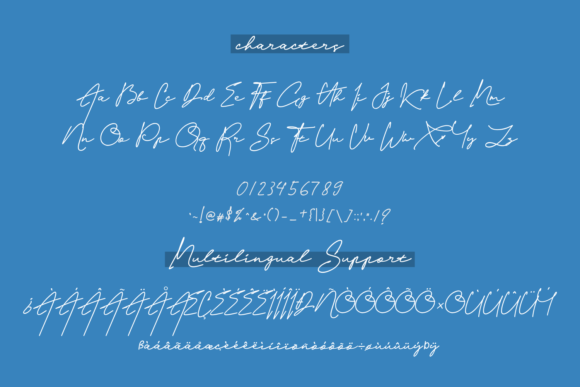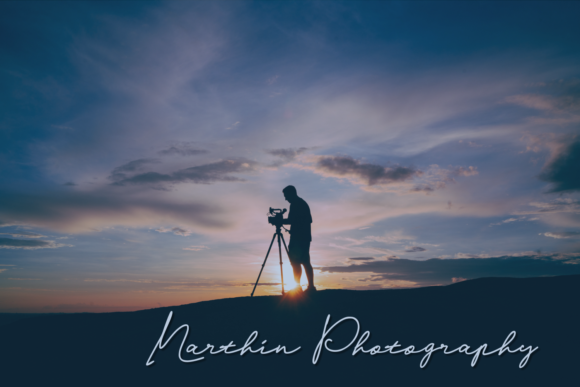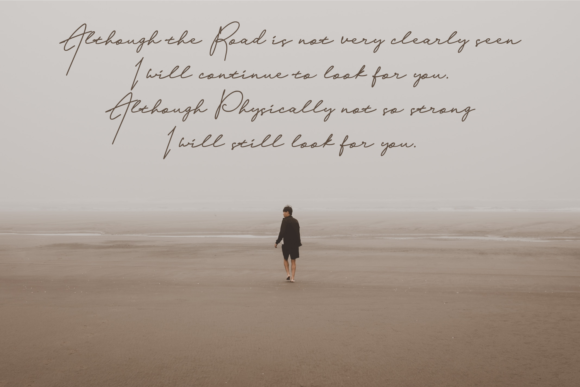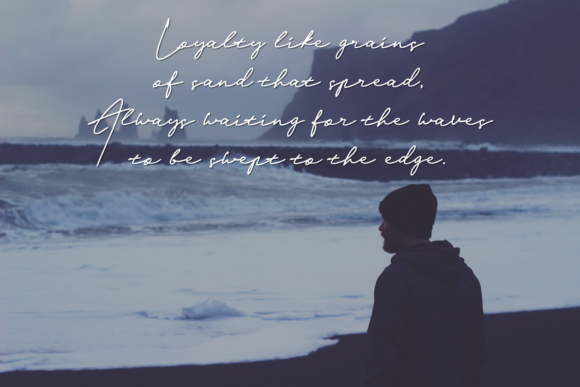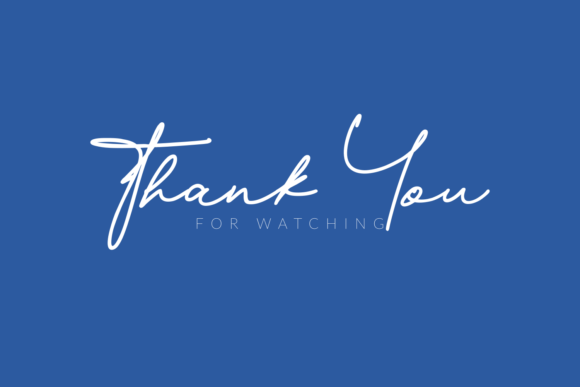
The Bright Road Font
About The Bright Road Font
The Bright Road is a stunning and bold script font that radiates authenticity. Fall in love with its modern charm!